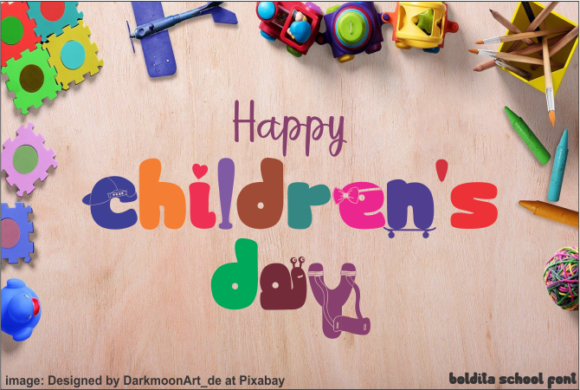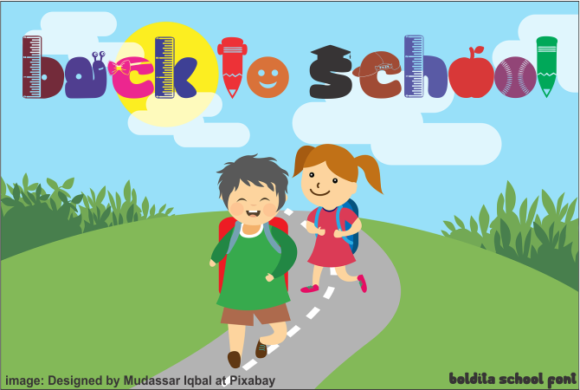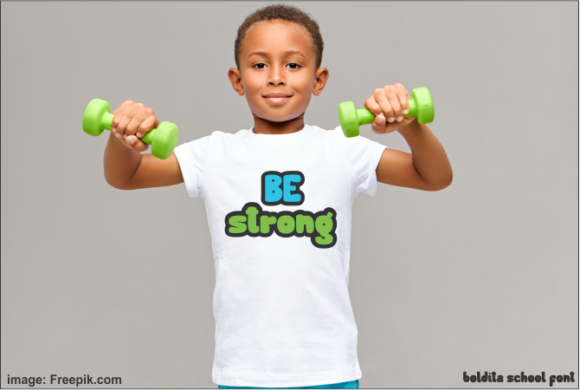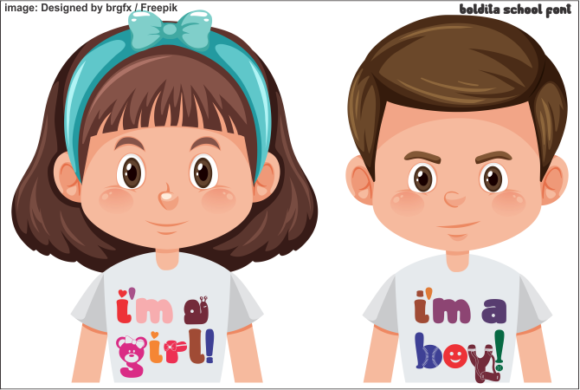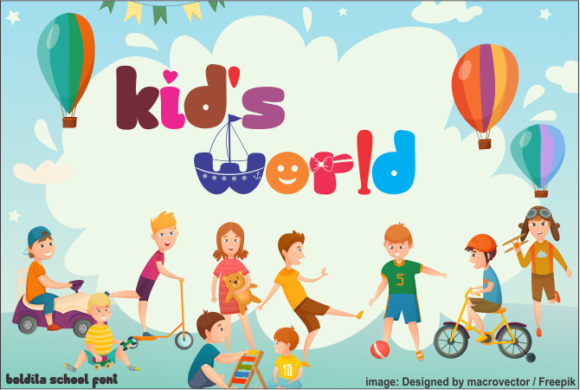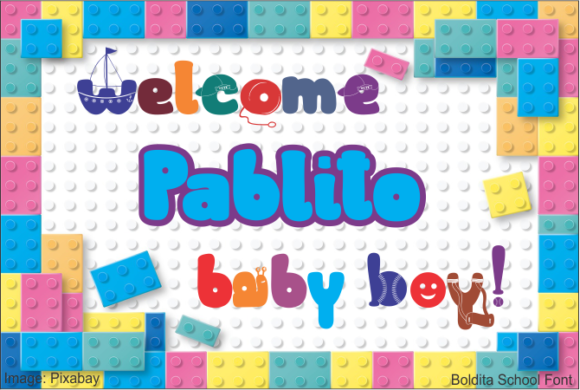
The Ultimate Guide to Boldita School Font: Adding Playfulness to Your Designs
I’ll never forget the time I was working on a children’s activity book project, and I just couldn’t find the right font to match the playful vibe I was going for. The client wanted something fun, yet authentic, and I was determined to deliver. That’s when I stumbled upon Boldita School Font, and it was love at first sight! 🎉 In this article, I’ll share my experience with this delightful font, its features, and how to make the most of it in your designs.
An Honest Review of Boldita School Font
So, what makes Boldita School Font so special? Let’s dive into the good stuff! 😊
- ✨ Playful and authentic: This font embodies the perfect blend of playfulness and authenticity, making it ideal for children’s activities, school projects, or any design that requires a friendly touch.
- ✅ Highly legible: Despite its decorative nature, Boldita School Font is surprisingly easy to read, even in smaller sizes.
- 🌈 Versatile: This font can be used for a wide range of design projects, from posters and flyers to digital graphics and crafts.
- ⚠️ Limited use in formal designs: While Boldita School Font is amazing for playful projects, it might not be the best choice for formal or professional designs.
- ⚠️ Glyph limitations: As with any font, there might be limitations to the number of glyphs available, which could impact your design flexibility.
The Backstory Behind Boldita School Font
While the origins of Boldita School Font are shrouded in mystery, it’s easy to imagine that the designer was inspired by the playful world of children’s education. Perhaps they wanted to create a font that would make learning fun and engaging. Whatever the inspiration, the result is a font that embodies the perfect blend of playfulness and authenticity.
| Font Name | Boldita School Font |
| What is Boldita School Font best used for? | Boldita School Font is perfect for children’s activities, school projects, and any design that requires a playful and authentic touch. |
| Is Boldita School Font easy to read? | Yes, despite its decorative nature, Boldita School Font is surprisingly easy to read, even in smaller sizes. |